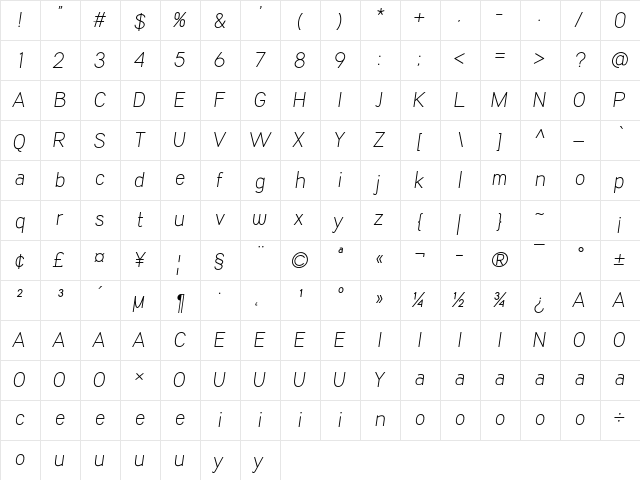
Kalyant Demo Light Oblique Font Preview
| Style | Light Oblique |
| Foundry | Sign Studio |
| Designer | Sugiyanto |
Design Context for Kalyant Demo Typeface
Kalyant Demo offers clean, dependable letterforms without strong stylistic allegiance, making it a practical choice for designers who need flexibility. The slanted form adds forward momentum and visual energy. The delicate stroke weight brings airiness and refinement to layouts.
Pro Tip: Try Kalyant Demo for annotation and caption copy alongside an upright companion — the contrast in angle creates a dynamic but ordered typographic system.